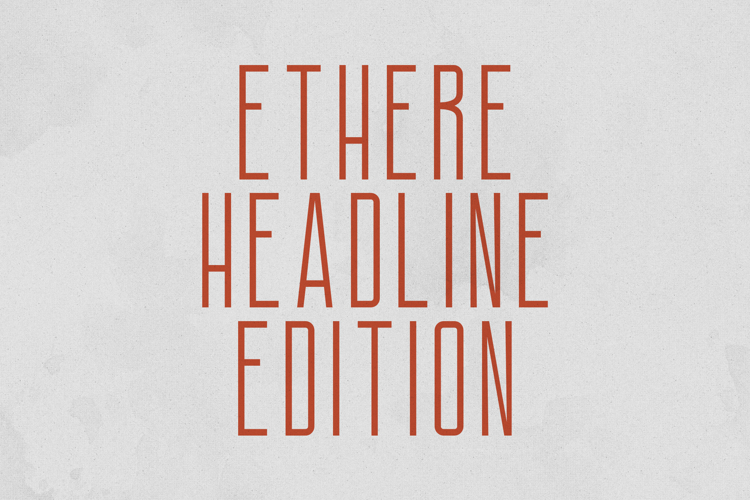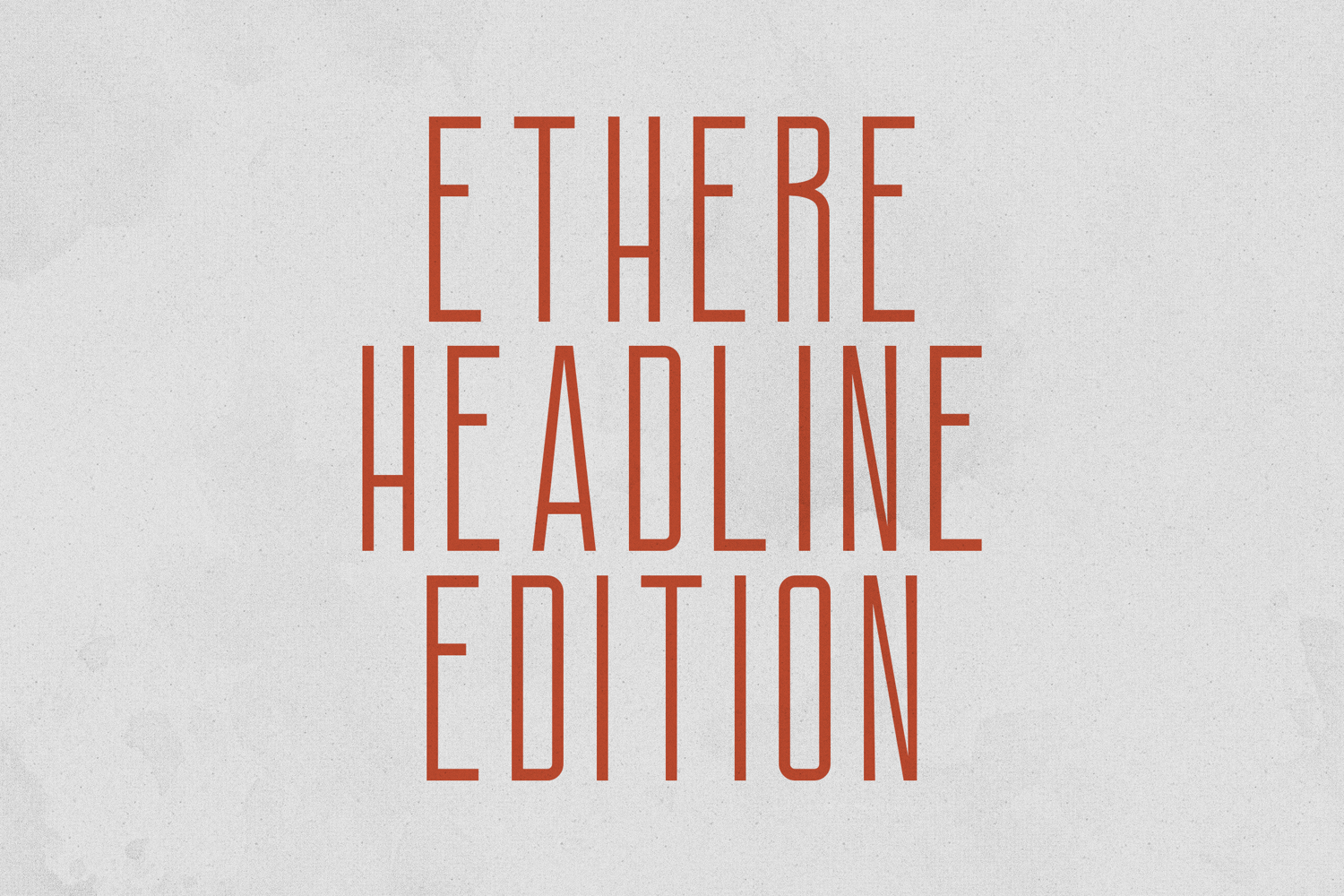
Ethere Headline Edition
Ethere – Headline Edition is a tall, condensed sans serif font designed for clean, modern headlines and high-impact typography. With its narrow proportions, consistent stroke weight, and minimalist construction, Ethere delivers a sharp and contemporary voice ideal for editorial design and bold visual communication.
Perfect for headlines, posters, branding, magazines, packaging, web design, and modern layouts, this font excels where clarity and elegance meet restraint. Its vertical rhythm and airy spacing make it especially effective for large-scale text and typographic statements.